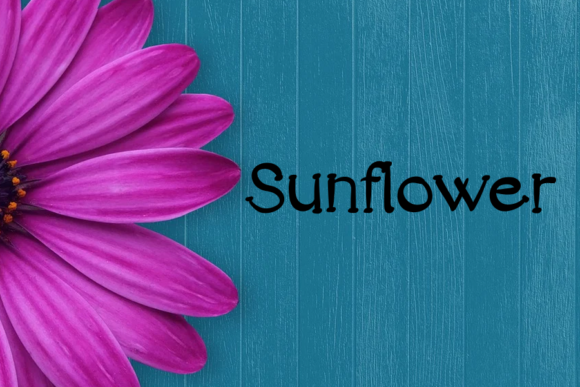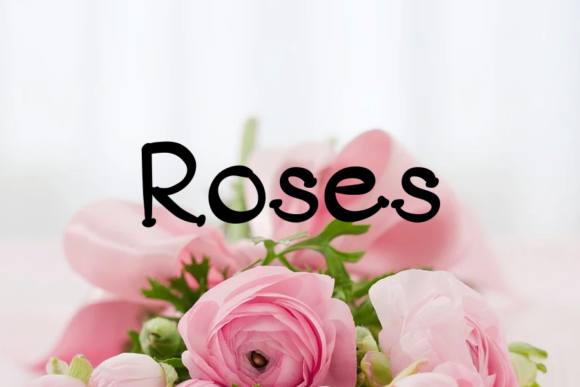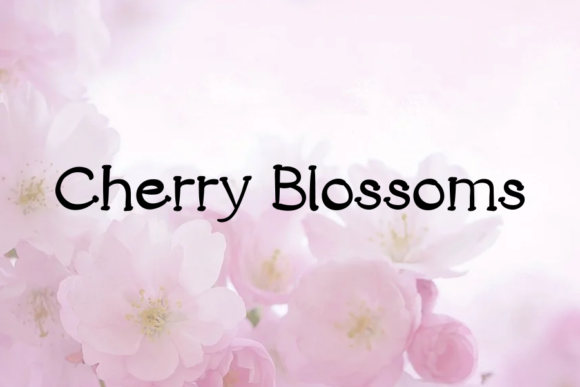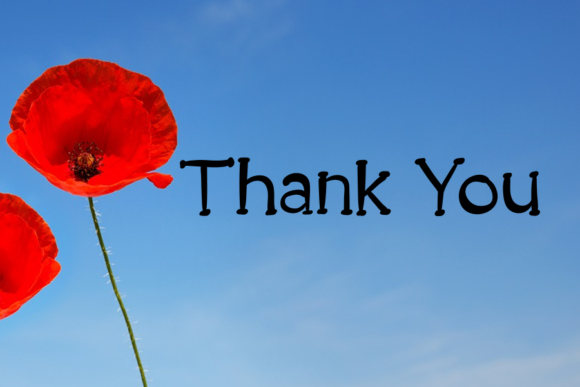
About Wild Elephant Font
Wild Elephant is a cute and simple handwritten font. Whether you use it for cartoon related designs, children games or just any creation that requires a lovely touch, this font will be an amazing choice.